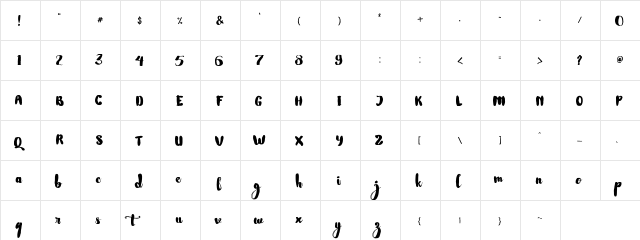
Nightamore Brush Free Font Brush Script
| Style | Brush Script |
| Foundry | Ferry Hadriyan (fey design) |
| Designer | Ferry Hadriyan (fey design) |
Design Context for Nightamore Brush Free Font Typeface
Nightamore Brush Free Font flows with the natural rhythm of handwritten lettering, making it ideal for designs that call for warmth and personal expression.
Font Pairing: Combine Nightamore Brush Free Font with a simple geometric sans for maximum contrast — the tension between flowing curves and clean structure is a classic typographic pairing.
Pro Tip: Pair Nightamore Brush Free Font with a clean sans-serif for supporting text. The contrast between fluid script and geometric structure creates an elegant typographic hierarchy.